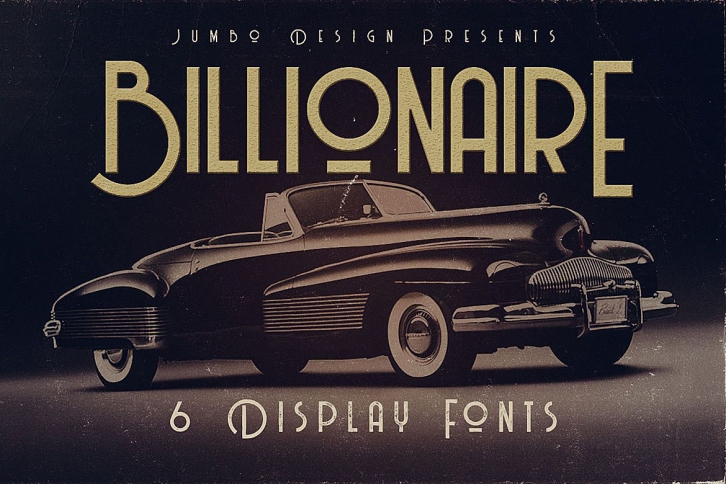
Billionaire is a beautiful font that was designed by Cruzine Design. It's a great choice for designers and creatives who need such a font. It was released on March 3, 2018 and the file size is 6.10 MB. Billionaire may give a more youthful, expressive and casual look to your project. It is a very beautiful, refined, elegant, and high-quality font.